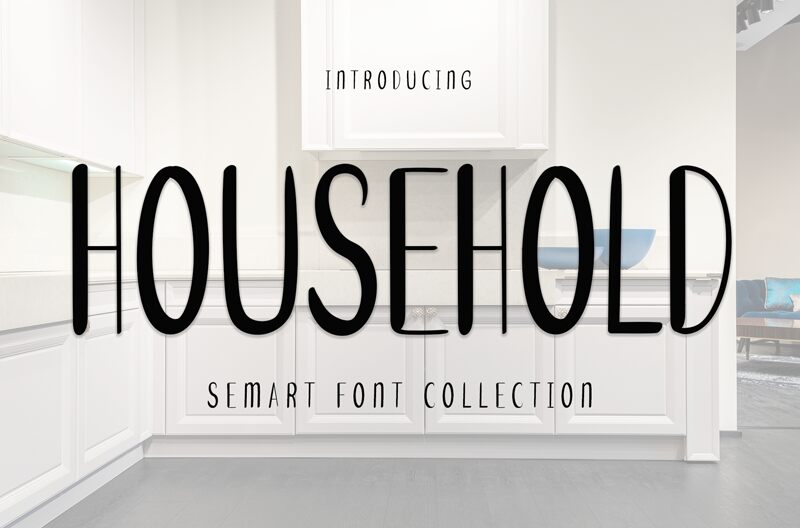
Household
Household font by Etik Fatimah is a condensed sans-serif font with notable versatile use. It showcases elegant curves and the art deco influence for a vintage charm, yet it retains its modernity with its retro-inspired characters and overall natural look.
Provided as a handwritten free font, Household can be used to design lettering projects for posters, flyers, invitation cards, greeting cards, signage design projects of various sorts like restaurants and shops in addition to branding designs. Download this tool once then enjoy its different uses however you please.